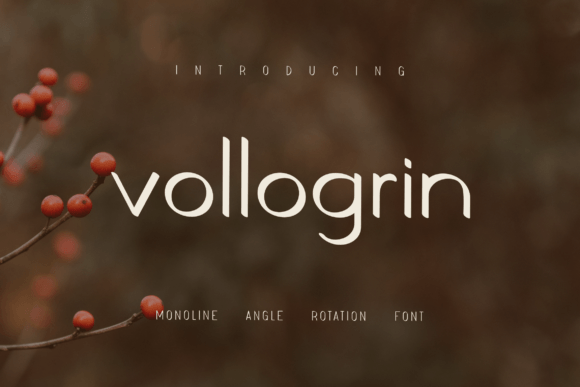
Journey into the world of Vollogrin Font, a breathtaking sans serif creation by Monoletter, and discover the elegance of simplicity. With its delicate hairlines and graceful curves, Vollogrin captivates hearts with its understated charm.
Immerse yourself in the beauty of Vollogrin's thin brushstrokes, masterfully crafted to evoke a sense of lightness and airiness. Each letter dances across the page, inviting your eyes to linger and explore the intricate details. Experience the allure of its meticulously designed italics, where each stroke flows with effortless grace, adding a touch of sophistication to your designs.
Vollogrin's versatility knows no bounds. Its minimalist aesthetic seamlessly blends with various design styles, making it the perfect choice for a wide range of projects. Unleash your creativity and let Vollogrin elevate your branding, web design, social media posts, or any other creative endeavor you can imagine.
Effortless and enchanting, Vollogrin is the epitome of understated elegance. Its delicate lines and subtle details create a visual symphony that captivates and enchants. Experience the transformative power of Vollogrin and elevate your designs to new heights of beauty and sophistication.